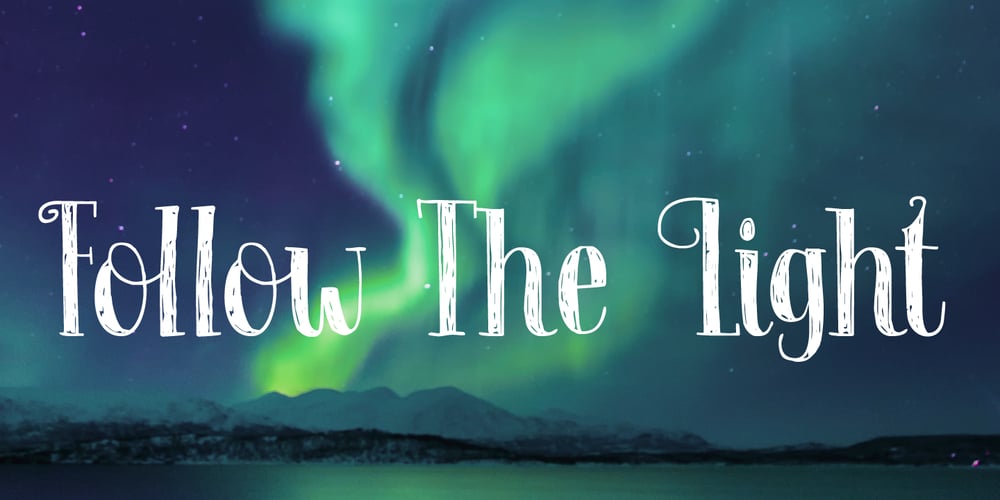
Follow The Light Font Family was designed by David Kerkhoff and published by Hanoded. Follow The Light contains 4 styles and family package options. Follow The Light is a lovely, handcrafted serif font family. I made this for my cousin who passed away recently.